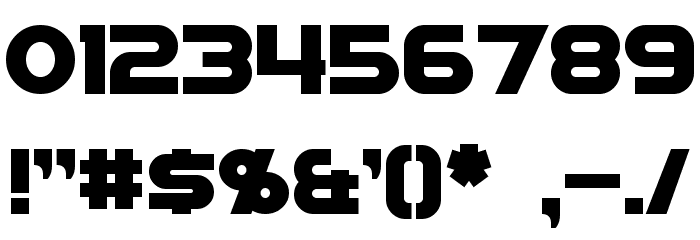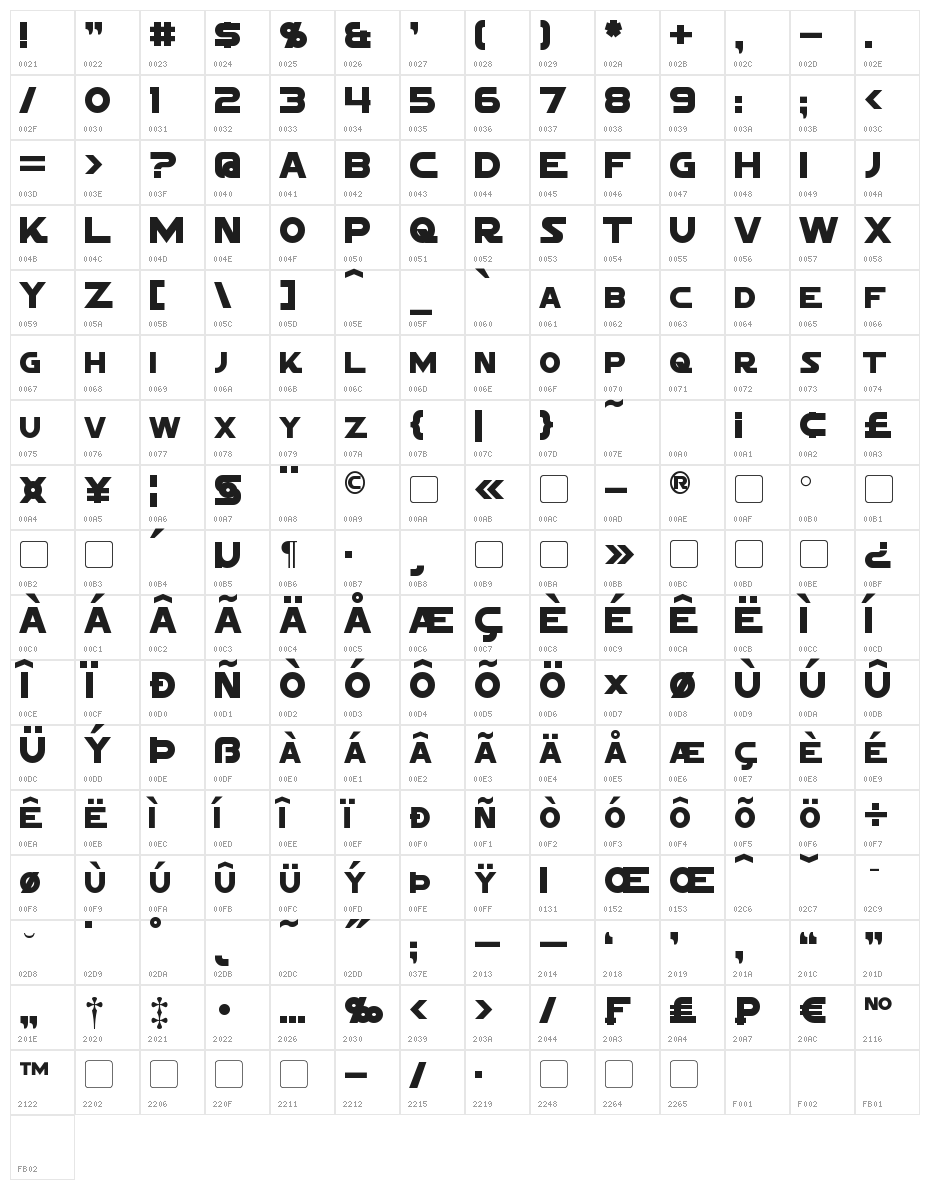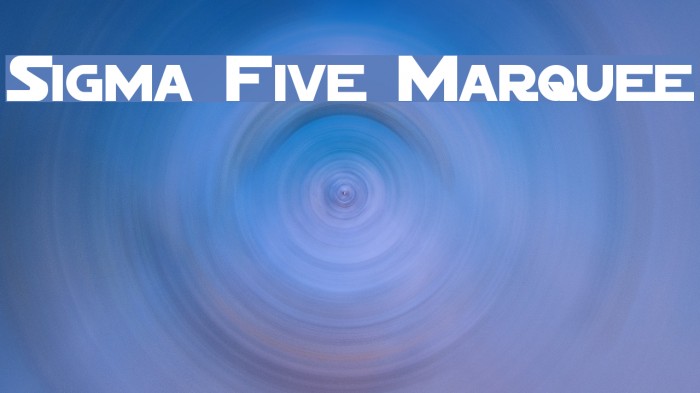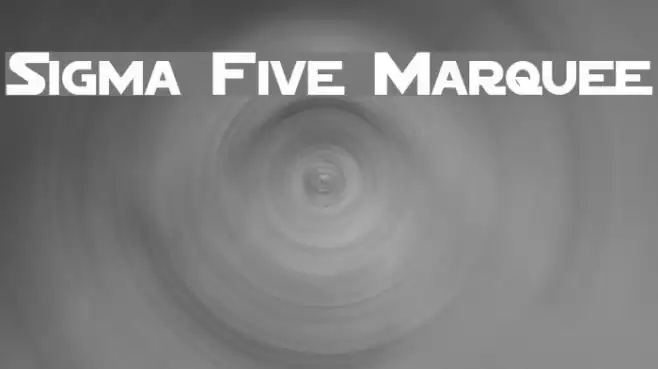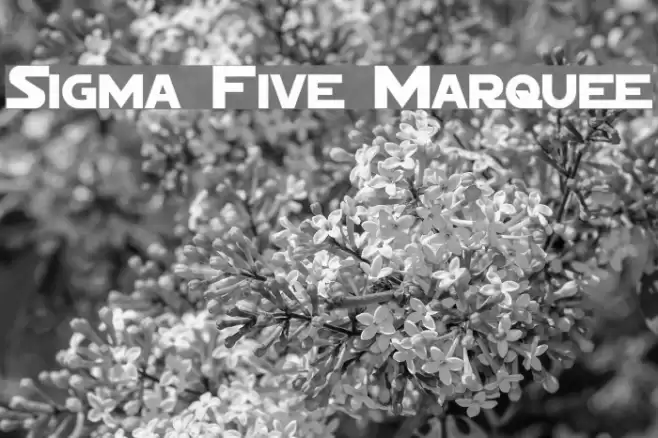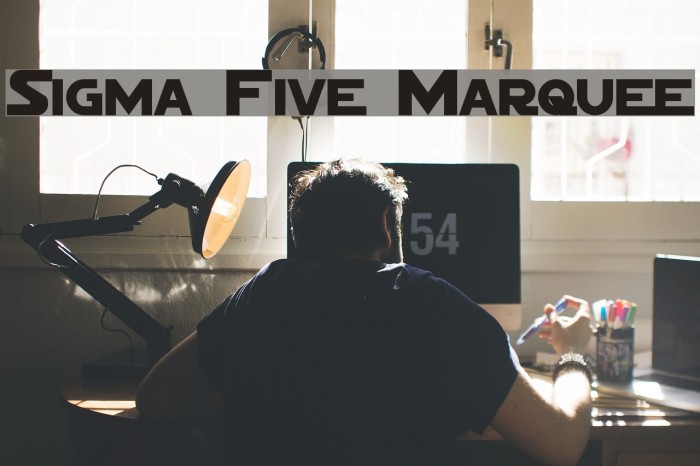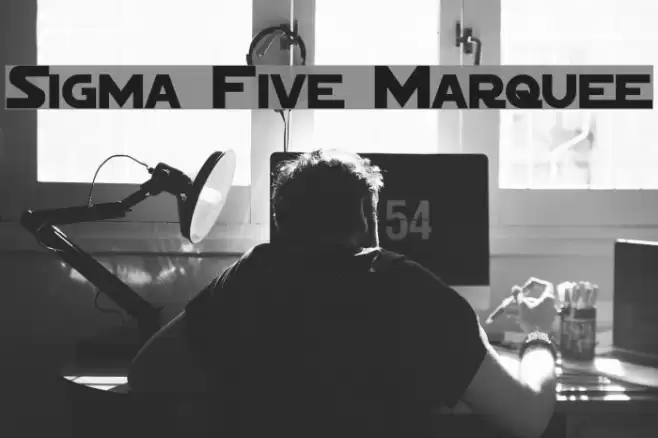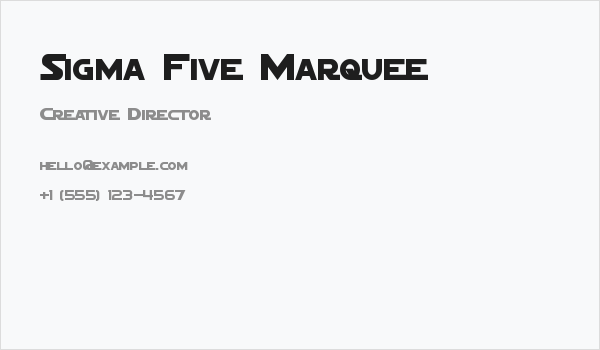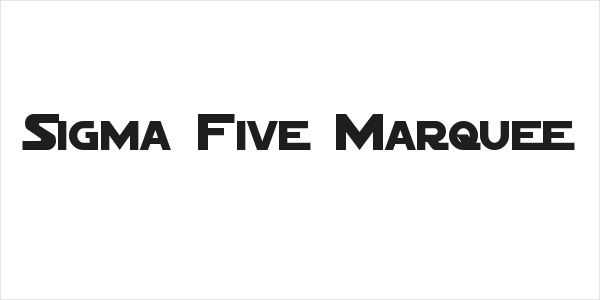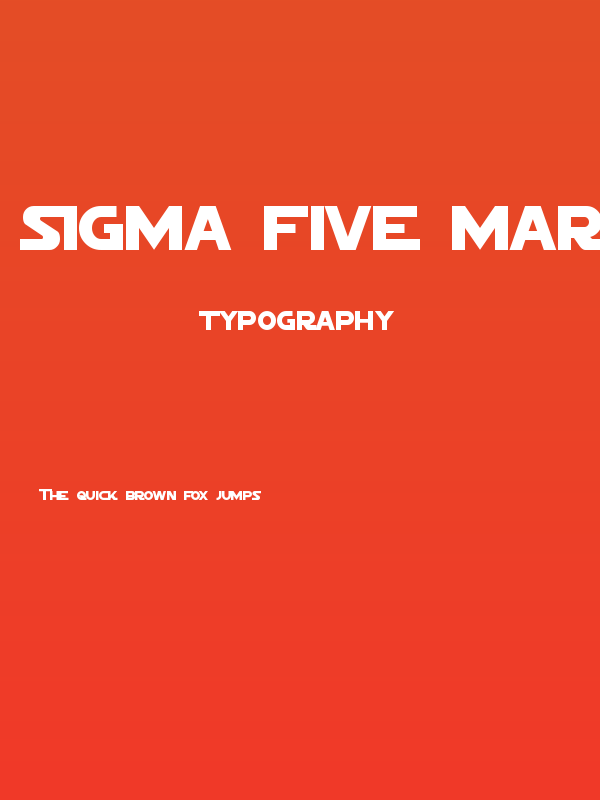
Sigma Five Marquee Font
Sigma Five Marquee Description
This font features a bold, geometric design with a futuristic aesthetic. The characters are constructed with thick, uniform strokes, giving them a strong and impactful presence. The angular cuts and sharp edges contribute to a modern and dynamic look. The uppercase letters are particularly striking, with a consistent height and width that create a cohesive appearance. The numerals and special characters maintain this bold style, ensuring readability and visual appeal. This font is ideal for projects that require a contemporary and assertive typeface.
| Proposed Projects | Ideal for branding, posters, headlines, and digital interfaces that require a strong, modern typeface. |